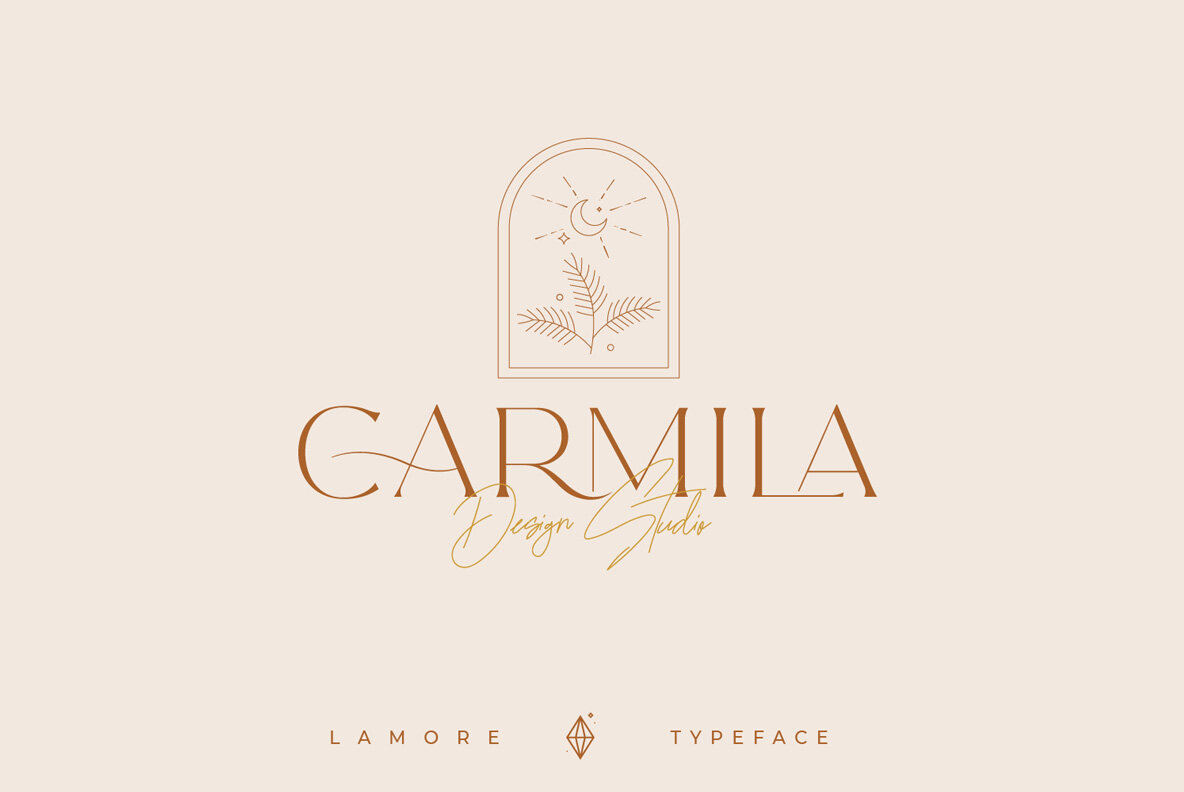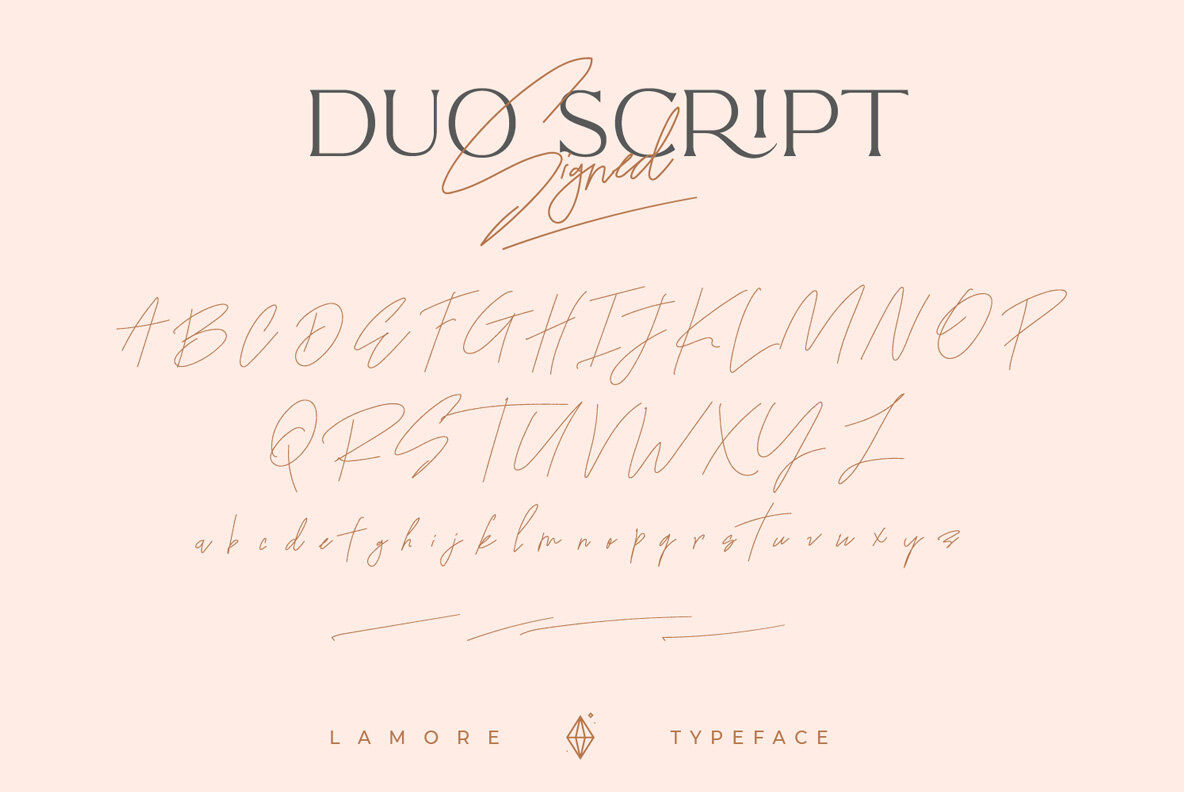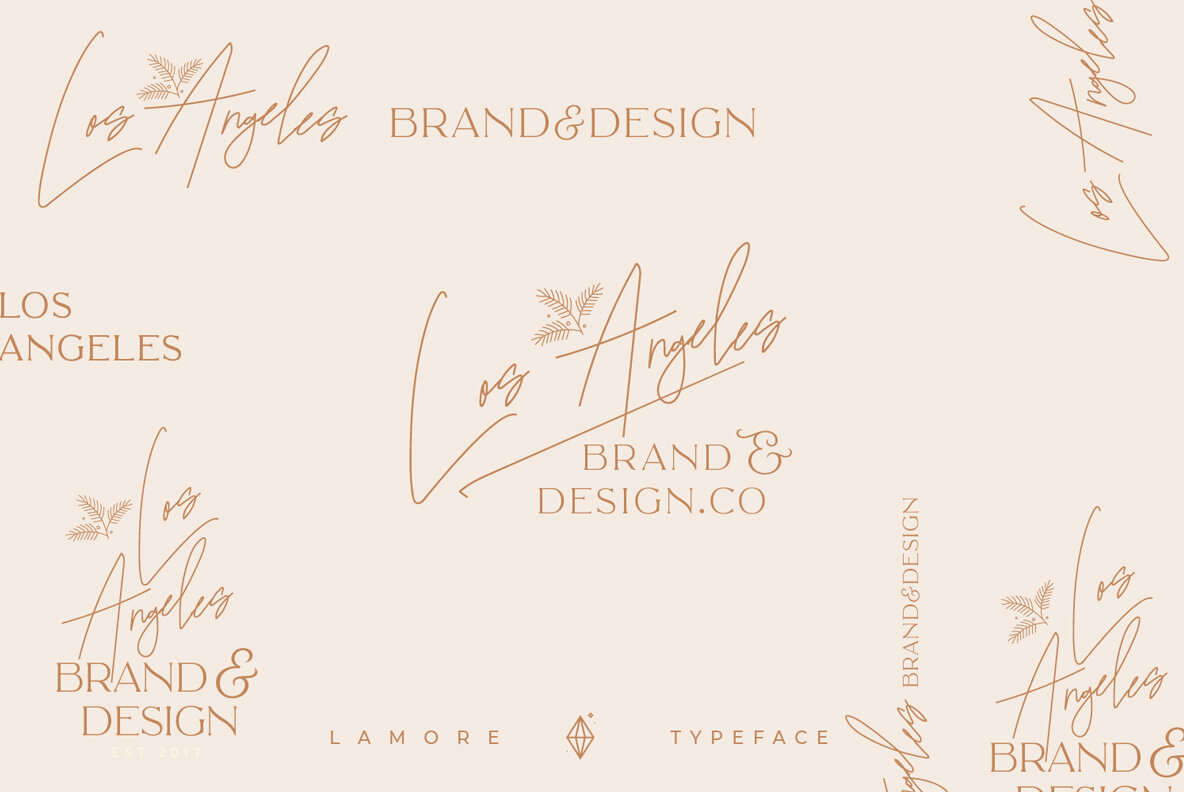
The Paris Lamore Sans & Script Font
The Paris Lamore Sans and Script Collection blends minimalist modern and elegant elements with a signature script flair. Crafted to meet the diverse needs of graphic designers, it offers an array of beautiful ligatures, alternative glyphs, and multilingual support, ensuring versatility for both large and small-scale projects. This font suits a variety of branding endeavors, from logos and clothing lines to product packaging and magazine headlines, adding a touch of sophistication as a text overlay on images.The Paris Lamore: Minimalist Modern Elegance